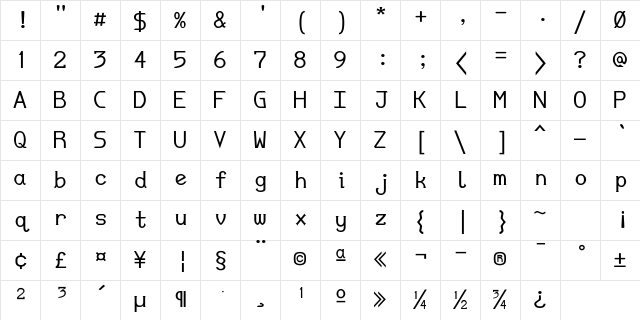
Complete DaddyTimeMono NF Book glyph index. Displaying only characters natively supported by DaddyTimeMono NF Book font.
DaddyTimeMono NF uses fixed-width spacing throughout, giving it the structured, systematic character associated with coding environments and technical documentation.
Who designed the DaddyTimeMono NF Book font?
This font was published by Jason Stewart. Check the technical specs section for copyright and designer details.